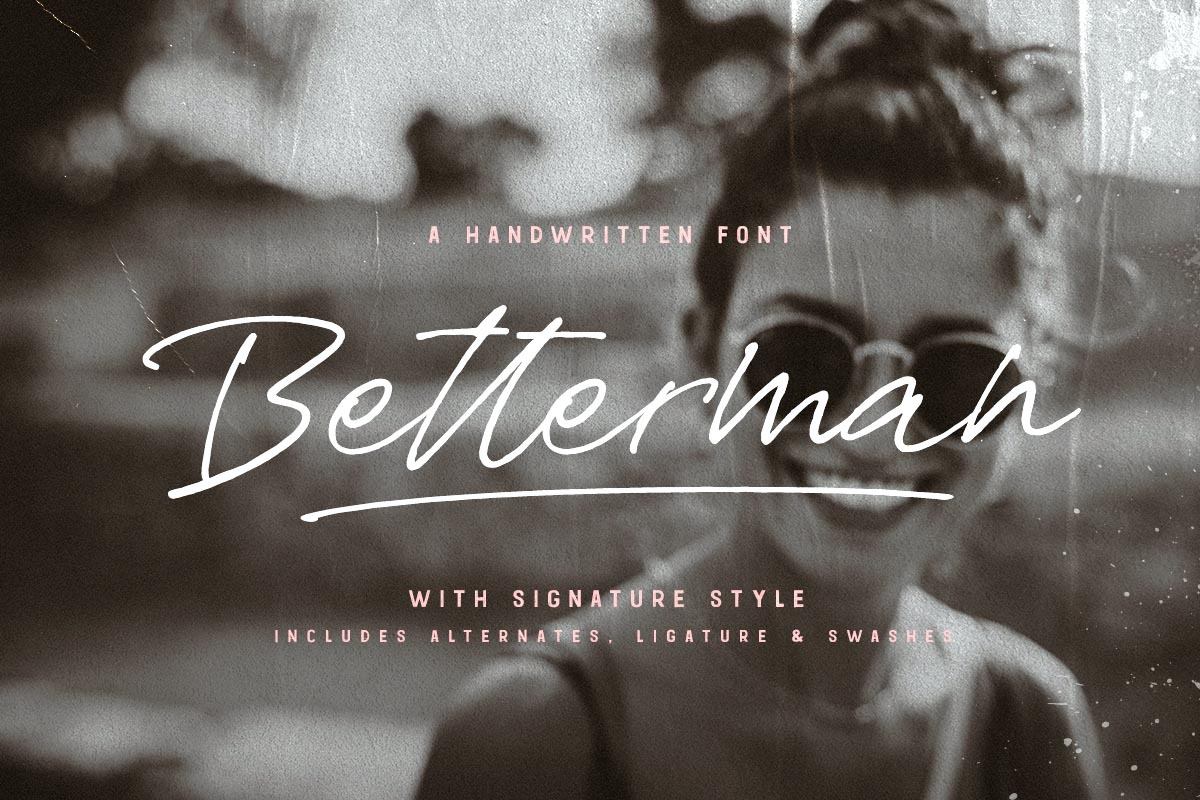
Betterman Signature Script Font Free Download is a sleek and elegant handwritten typeface that captures the natural flow and finesse of a real signature. Perfect for branding, logos, business cards, wedding designs, and social media graphics, this font brings a touch of sophistication and personal style to any project.
With its smooth, flowing lines and classy aesthetic, Betterman is designed to make your text look effortlessly stylish and unique. It includes ligatures and stylistic alternates to give your designs a truly custom-made feel.